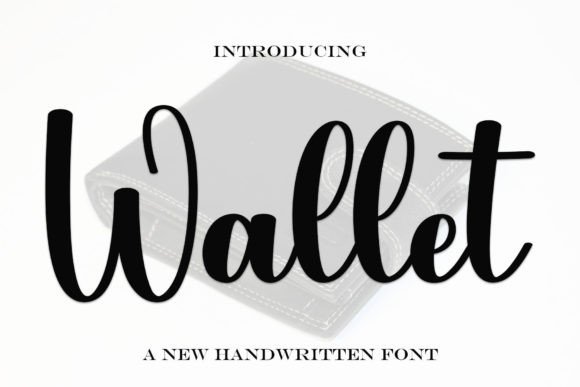
In a world saturated with digital noise, your brand's voice yearns for a touch of timeless elegance, a whisper of sophistication to cut through the clutter. Our "Wallet" font, hailing from the visionary mind of putrasyahreza00, is more than just a collection of glyphs; it's an exquisite symphony of form and grace, a tribute to the enduring beauty of classic calligraphy.
"Wallet" isn't merely a font; it's an experience, an invitation to step into a realm of refinement and distinction. Its flowing lines, reminiscent of a dancer's graceful movements, will lend an aura of understated luxury to your designs, effortlessly elevating them from ordinary to extraordinary. Experience the transformative power of "Wallet" and witness how it seamlessly blends the charm of tradition with the vibrancy of modernity.
Picture your brand adorned with "Wallet's" elegant curves, your words flowing harmoniously across the page, capturing the attention of your audience with irresistible magnetism. Let your designs speak volumes, conveying a sense of heritage and innovation, of timeless appeal and contemporary relevance.
With "Wallet," versatility transcends mere adaptability; it becomes a kaleidoscope of possibilities. Its diverse range of applications knows no bounds, from enchanting wedding invitations that evoke a sense of heartfelt romance to captivating logos that exude unwavering professionalism. Allow "Wallet" to be your creative muse, transforming ordinary concepts into masterpieces of design.
Unleash your imagination and embark on a creative journey with "Wallet." Its meticulous craftsmanship and inherent beauty will ignite a fire of inspiration within you, propelling you to new heights of creativity. Say goodbye to mundane designs and embrace a world of elegance, sophistication, and endless possibilities.
"Wallet" is not just a font; it's a statement of style, an assertion of individuality, a testament to your discerning taste. It's the key to unlocking a world of design excellence, where every project becomes a reflection of your brand's unique personality and unwavering commitment to excellence.
Welcome to the world of "Wallet," where timeless elegance meets modern innovation. Embrace the beauty of calligraphy, experience the transformative power of versatility, and unleash your creativity like never before. Let "Wallet" be your guiding light, illuminating the path to design excellence.